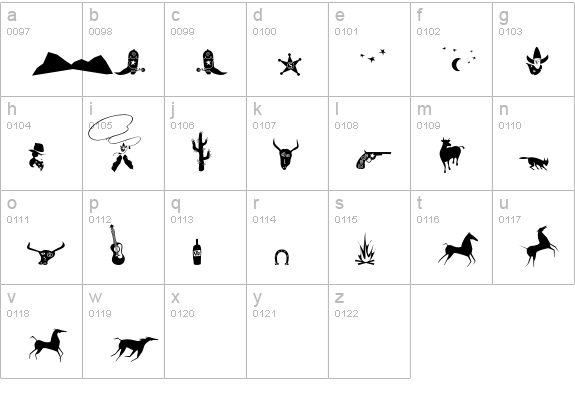
Giddyup Thangs font is a whimsical and playful typeface that exudes a sense of fun and energy. Its quirky design features unique thang shapes that add a touch of charm to any project. Whether you're creating posters, greeting cards, or social media graphics, this font is sure to make your text stand out. The best part? Giddyup Thangs font is completely free to download at FontsMarket.com! You can easily add this delightful font to your collection without any cost. So go ahead and give your designs a cheerful and lively touch with Giddyup Thangs font today.